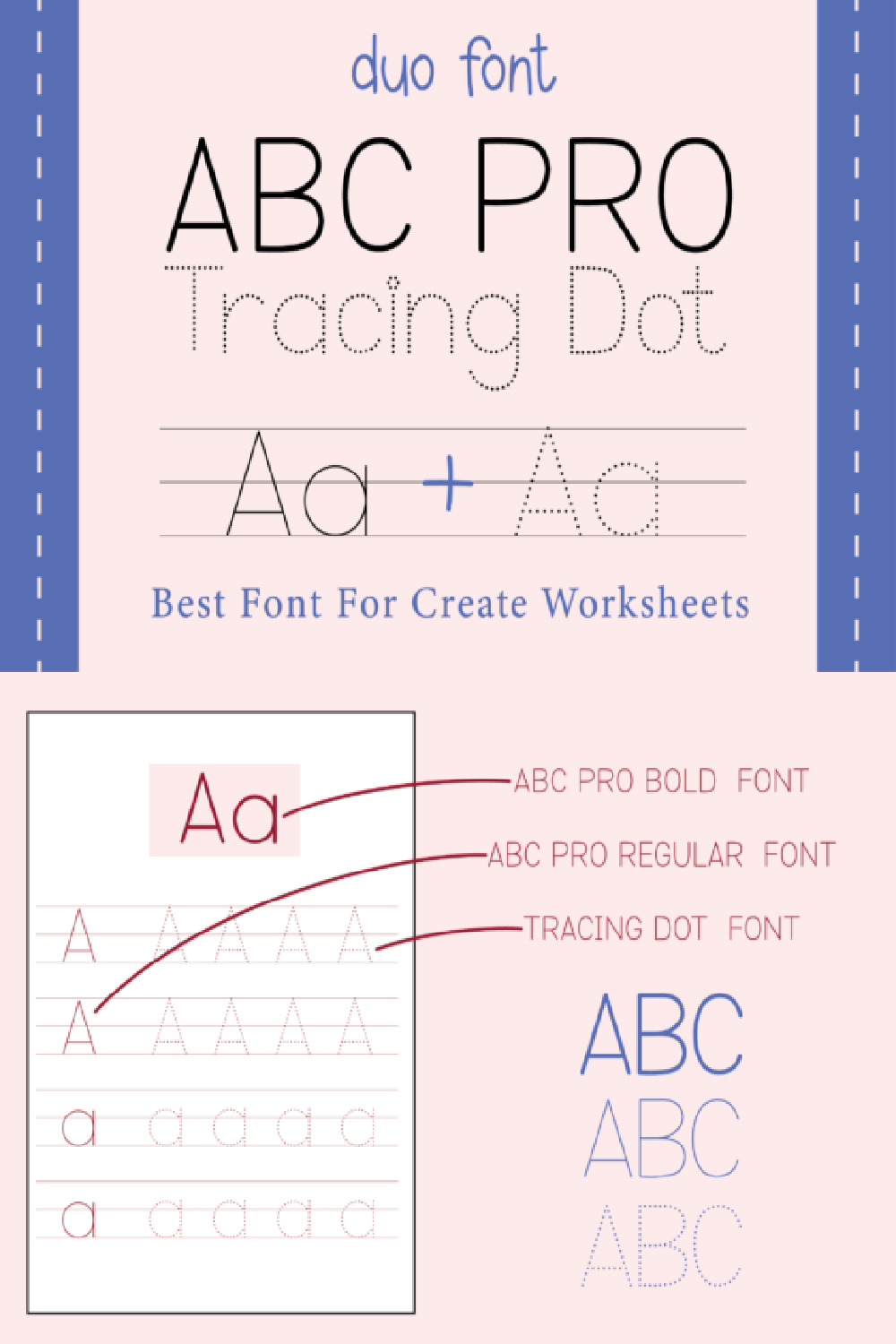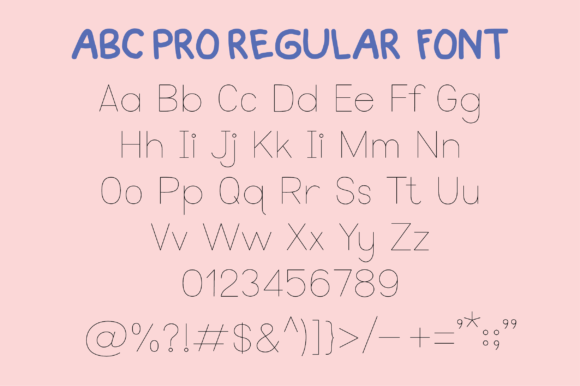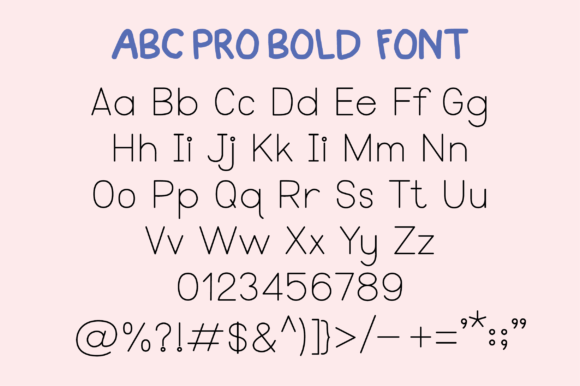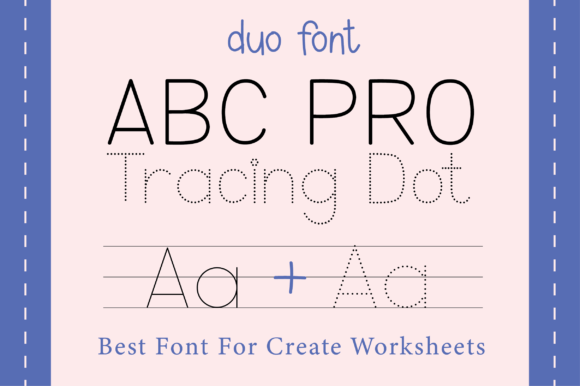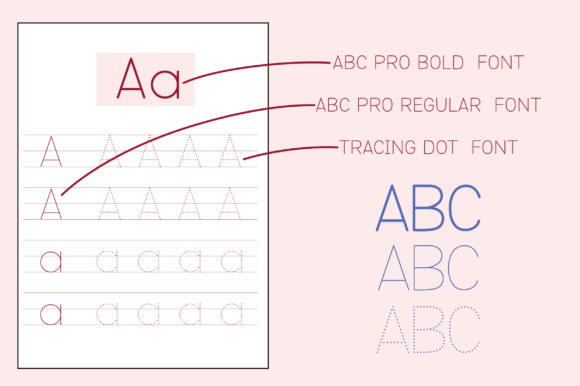
Abc Pro Tracing Dot Font
About the Abc Pro Tracing Dot Font
Meet Abc Pro Tracing Dot Font, a stunning font that brings a touch of elegance and professionalism to any design. Simplify your lettering and handwriting practice with the ABC Pro Tracing Dot font. Ideal for kids and beginners, this font features dotted lines to help guide your writing. Perfect for learning the basics or improving your handwriting skills, it’s a fun and interactive tool for all ages.
Abc Pro Tracing Dot Font is best suited for educational materials, worksheets, children’s books, and playful branding projects where a hand-drawn, approachable aesthetic is desired. Its informal nature makes it unsuitable for body text, formal documents, or applications requiring high readability over extended lengths.
The font’s core personality is friendly and approachable, with a touch of childlike charm. For effective pairings, consider combining it with a clean sans-serif like Open Sans for body copy or a playful script font like Pacifico for accents. Avoid pairing it with overly serious or geometric sans-serif fonts which would clash with its informal nature.
For optimal impact, utilize Abc Pro Tracing Dot Font in headlines, short captions, or as a decorative element within a larger design. Its dotted lines add a unique visual interest, making it a strong choice for projects targeting younger audiences or emphasizing a fun, educational tone.